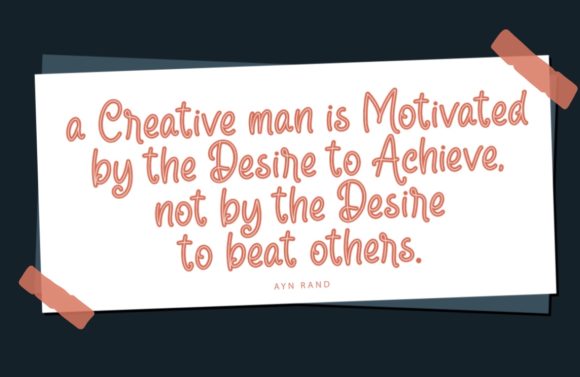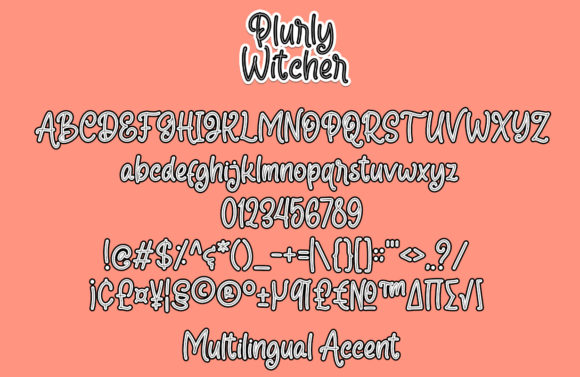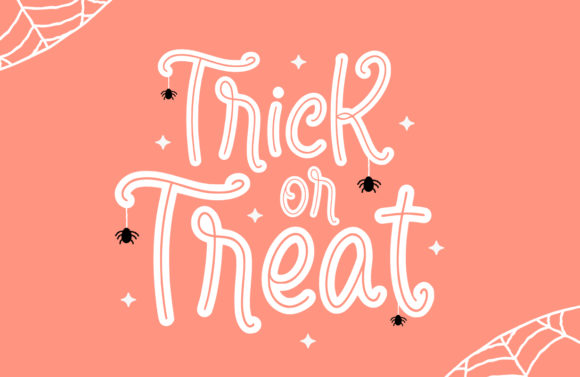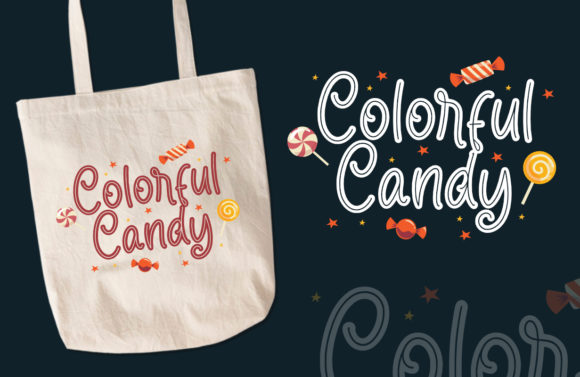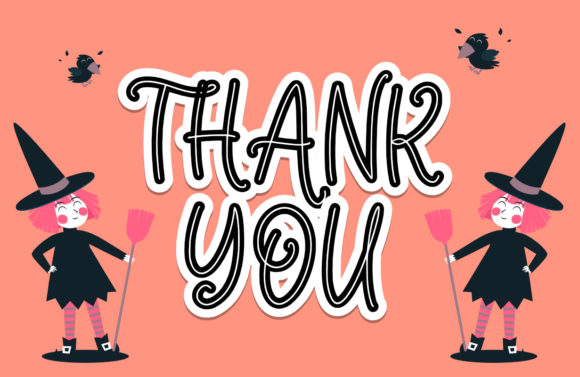
Introduction to Plurly Witcher Font
You’ve spent hours perfecting your design, and just as you’re about to click “export,” you realize it’s missing that special something – a touch of whimsy, a dash of playfulness. That’s where the Plurly Witcher Font comes in, a delightful handwritten font that will add a joyful sparkle to your creative project.
As a designer, you’re always on the lookout for high-quality design resources that will take your work to the next level. And that’s exactly what the Plurly Witcher Font offers – a free download that’s perfect for adding a personal touch to your designs, whether you’re working on a project with a transparent background or something more intricate.
With its quirky charm and versatility, the Plurly Witcher Font is an essential addition to any designer’s toolkit, making it an invaluable resource for creative projects of all kinds.
Key Features of Plurly Witcher Font
- High-quality design for creative projects: The Plurly Witcher Font is a versatile and elegant typeface suitable for various design applications, including logos, branding, and advertising.
- Unique characteristics: The Plurly Witcher Font features a unique blend of modern and traditional elements, with subtle flair and sophistication, setting it apart from other fonts in its category.
Honest Review: Plurly Witcher Font
I recently stumbled upon the Plurly Witcher Font and I must say it’s a great addition to any designer’s toolkit. As a designer, I’m always on the lookout for high quality fonts that can elevate my creative projects. The Plurly Witcher Font delivers on this front, with its clean and elegant design that’s perfect for a variety of applications.
- ✨ Clean and elegant design that’s perfect for creative projects
- ⚠️ Limited character set, which may be a concern for designers working on large projects
- ⚠️ Not suitable for use in complex, multi-layered designs
Overall, I’m impressed with the Plurly Witcher Font and would recommend it to designers looking for a high quality, easy-to-use font. Just be aware of its limitations and use it judiciously in your design projects.